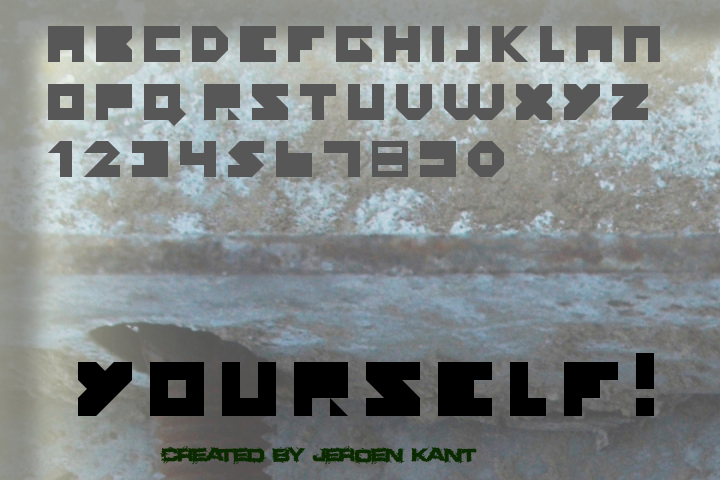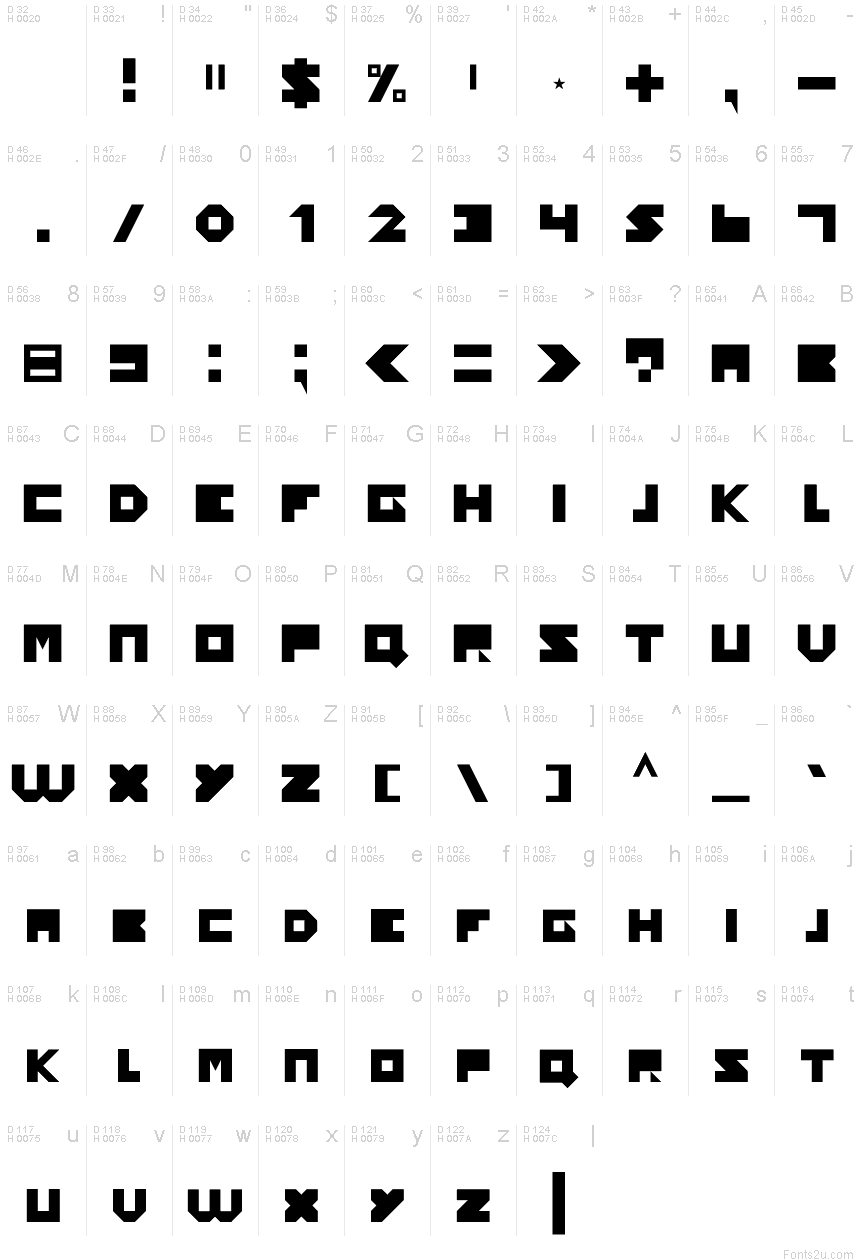
Yourself Regular
Have fun with this free square font!
(Update: Made difference between CAPS and normal, and improved M)
“Yourself” was built with FontStruct